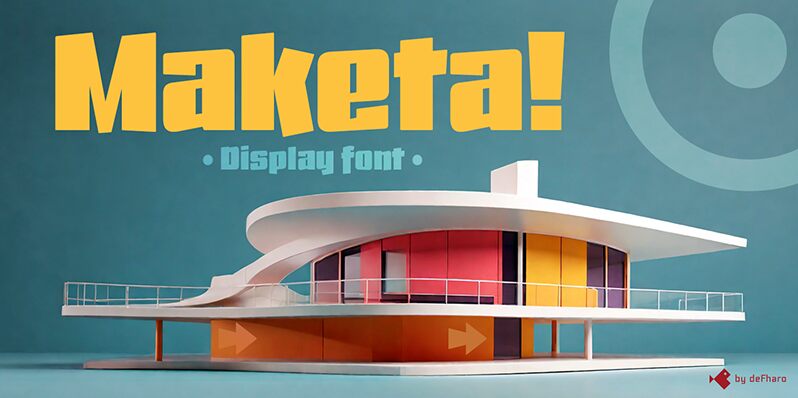
Maketa font by deFharo is a free font that stands out in any context where you need to gain attention. Maketa has various uses due to its remarkable dynamic, a combination of architecture inspiration with modernist tendencies. DeFharo is the author, world-renowned for his impressive and always spectacular lettering work.
This particular font can be applied with ease in multiple domains, such as designing posters, logos, cover pages. Unique covers can be designed, as well as interesting signage, especially if combined with more minimal fonts. Packaging designs would be an ideal fit, as well as magazine inserts, branding material or even combining it with some literary work.
Maketa is a typeface that seamlessly combines impact, dynamism, and sophistication. Its strokes evoke an aesthetic that lies between calligraphy and modernist fonts. More than just a typeface, it serves as a vibrant statement of energy, movement, and fun—a celebration of contemporary design.
With its robust structure, pronounced contrasts, and fresh, positive style, Maketa is the ideal choice for projects that aim for visual impact.